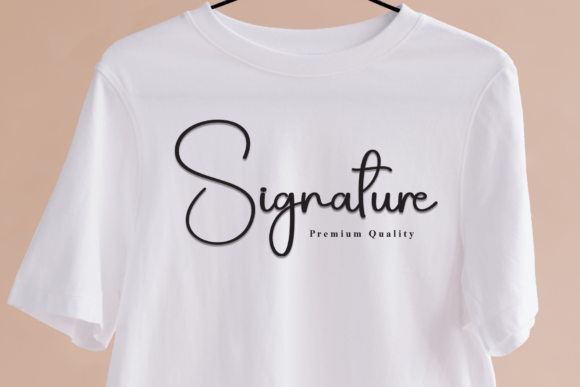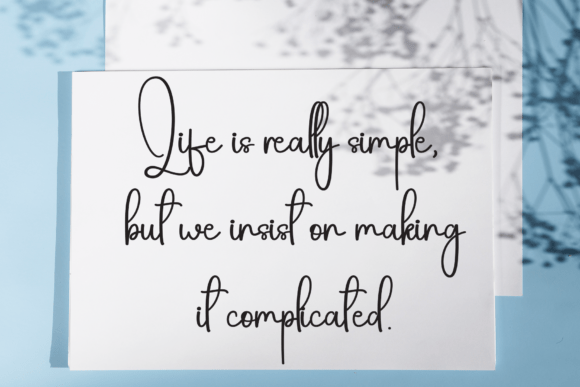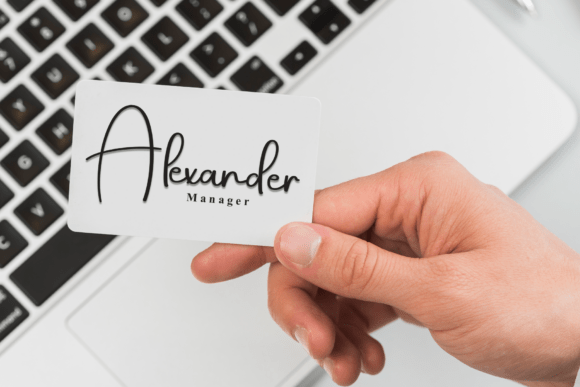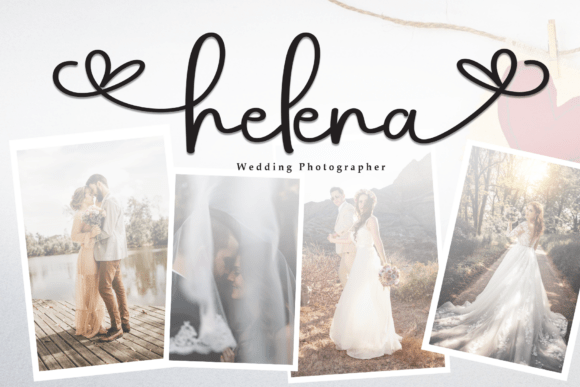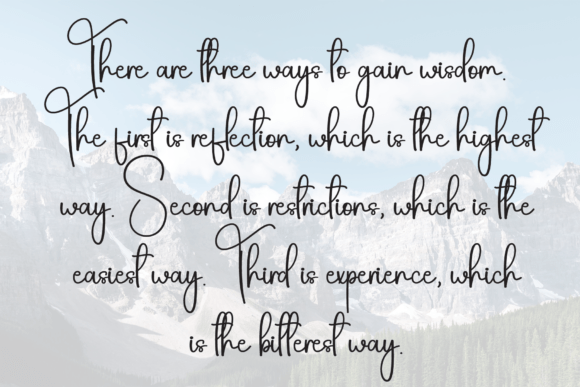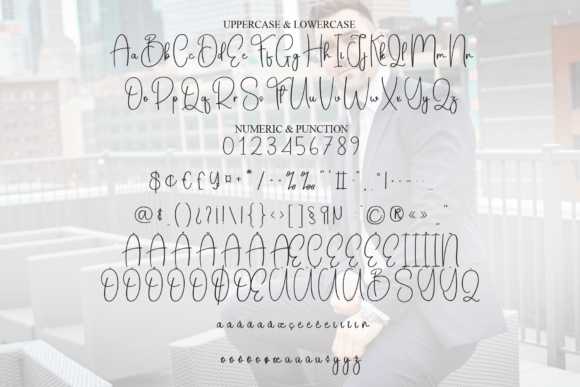
Introducing Handsome Font: Elevate Your Designs with Elegance and Fluidity
In the world of typography, a font can make or break a design. For designers and crafters seeking to add a touch of sophistication and elegance to their projects, look no further than the Handsome Font. This stylish handwritten script font is designed to radiate elegance and fluidity, making it perfect for a wide range of applications, from branding and invitations to creative projects and more.
The Characteristics of Handsome Font
So, what sets Handsome Font apart from other typefaces? Here are just a few of its key characteristics:
- Smooth, flowing strokes: The Handsome Font features smooth, flowing strokes that create a natural and sophisticated feel. This fluidity makes it perfect for designs where you want to convey a sense of elegance and refinement.
- Graceful balance of charm and modernity: The Handsome Font strikes a perfect balance between charm and modernity, making it versatile enough to use in a wide range of designs, from traditional to contemporary.
- Personal, artistic touch: With its handwritten script style, the Handsome Font adds a personal, artistic touch to any design, making it perfect for projects where you want to stand out from the crowd.
Perfect for Branding, Invitations, and Creative Projects
The Handsome Font is incredibly versatile, making it suitable for a wide range of applications. Here are just a few ideas for how you can use this beautiful font:
- Branding: Use the Handsome Font to create a sophisticated and elegant brand identity that sets your business apart from the competition.
- Invitations: Add a touch of luxury and refinement to your invitations, whether you’re planning a wedding, birthday party, or other special occasion.
- Creative projects: The Handsome Font is perfect for a wide range of creative projects, from graphic design and illustration to scrapbooking and mixed media art.
Why Choose Handsome Font?
With so many fonts to choose from, why should you choose the Handsome Font? Here are just a few reasons:
- Unique and stylish: The Handsome Font is a unique and stylish addition to any design, setting you apart from the crowd.
- Elegant and sophisticated: This font exudes elegance and sophistication, making it perfect for designs where you want to convey a sense of refinement.
- Highly versatile: The Handsome Font is incredibly versatile, making it suitable for a wide range of applications and design styles.
Tips for Using Handsome Font
Here are a few tips for getting the most out of the Handsome Font:
- Use it sparingly: While the Handsome Font is beautiful, it can be overwhelming if used too much. Use it sparingly to add a touch of elegance and sophistication to your design.
- Pair it with complementary fonts: The Handsome Font pairs beautifully with a wide range of fonts. Experiment with different combinations to find the perfect match for your design.
- Experiment with different colors and textures: The Handsome Font looks beautiful in a wide range of colors and textures. Experiment with different options to find the perfect look for your design.
In conclusion, the Handsome Font is a stylish and elegant handwritten script font that is perfect for designers and crafters seeking to add a touch of sophistication and refinement to their projects. With its smooth, flowing strokes and graceful balance of charm and modernity, this font is sure to elevate your designs to the next level. Whether you’re working on a branding project, invitation, or creative project, the Handsome Font is a versatile and beautiful choice.